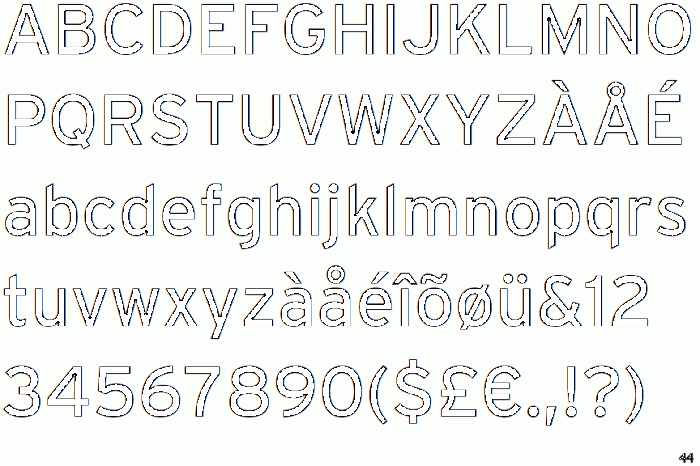
• i tried
Nice work, but where did all other glyphs go?
But this isn't really the Interstate typeface, although somewhat similar in some glyphs, many are very different.
yes i know
pd: it went to the slammer
@STF Did something happen to the image? All I see is the border of the glyphs where the pixels weren't pure black (#000).
@BWM: It's a poor GIF with (LZW) transparant color compression algorithm error. I forgot to convert the image to PNG.